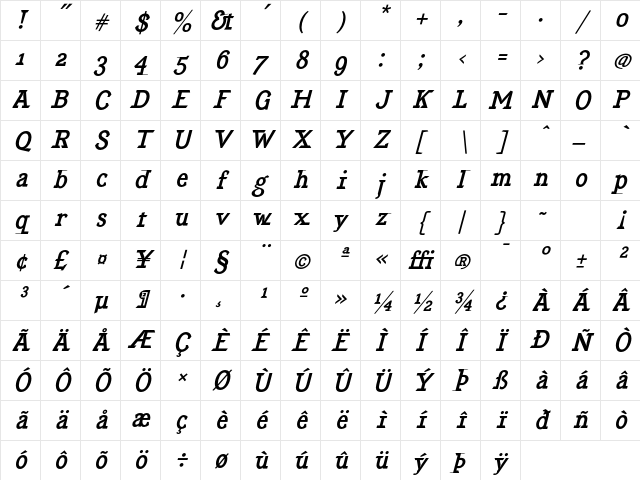
EquipoizeSerif BoldItalic
Design Context for EquipoizeSerif
EquipoizeSerif carries the refined structure of traditional serif typography, with bracketed terminals and considered proportions that communicate credibility and craft. The slanted form adds forward momentum and visual energy. Its bold stroke weight gives it real presence on the page.